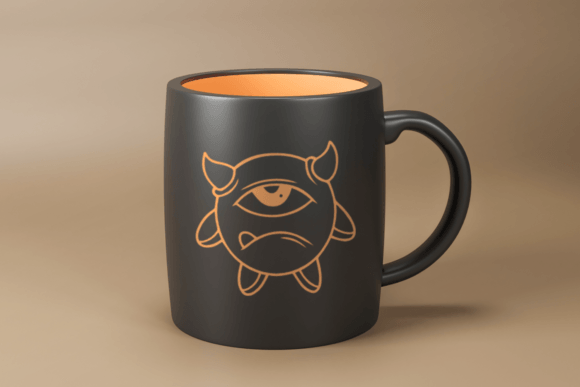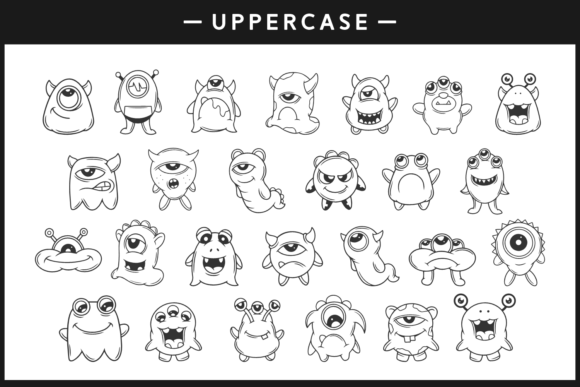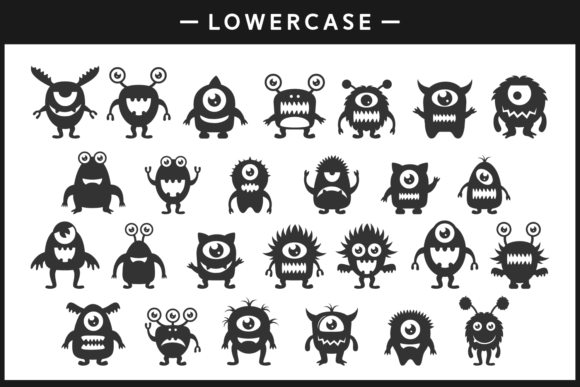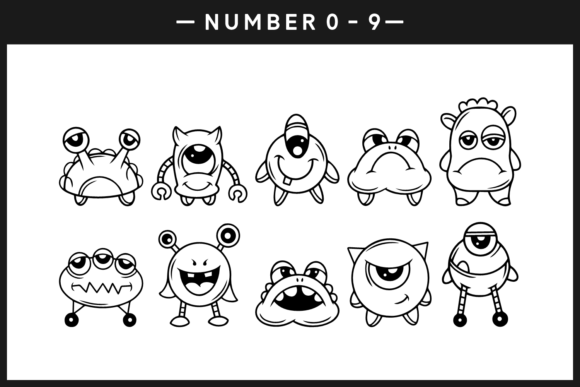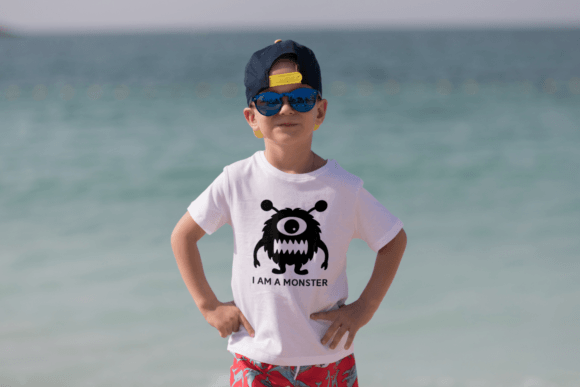
Funny Monsters Font
Introducing Funny Monsters, a playful and whimsical dingbats font that will bring smiles to both kids and the young at heart. This font features a collection of cute and lovable monsters, making it the perfect choice for creating adorable designs that will capture the imaginations of children everywhere.
With Funny Monsters, you can easily incorporate these delightful creatures into a variety of projects. Whether you’re designing t-shirts, mugs, books, stationery, websites, or any other creative endeavor, these little monsters will add a touch of charm and playfulness.
Each monster in the font is carefully crafted to have its unique personality and characteristics. From silly and goofy to friendly and cuddly, each doodle brings its own charm to your designs. You can mix and match the monsters to create your own cast of lovable characters or use them individually to add a whimsical touch to your artwork.
The versatility of Funny Monsters allows you to use them in both digital and physical formats. Create eye-catching designs for your online presence or bring them to life in printed materials. Whether you’re designing for children’s products, educational materials, or simply want to add a touch of fun to your projects, Funny Monsters is the perfect companion.
Using Funny Monsters is as easy as typing on your keyboard. Each monster is assigned to a specific character, allowing you to quickly access and use them in your designs. Simply select the appropriate character and watch as these lovable creatures come to life on your canvas.
Bring joy and laughter to your designs with Funny Monsters. Let their playful nature and friendly faces captivate the hearts of children and create memorable experiences. Whether you’re creating merchandise, illustrations, or anything in between, Funny Monsters is here to add a dash of whimsy and fun to your creative endeavors. Get ready to embark on a delightful adventure with these lovable creatures!